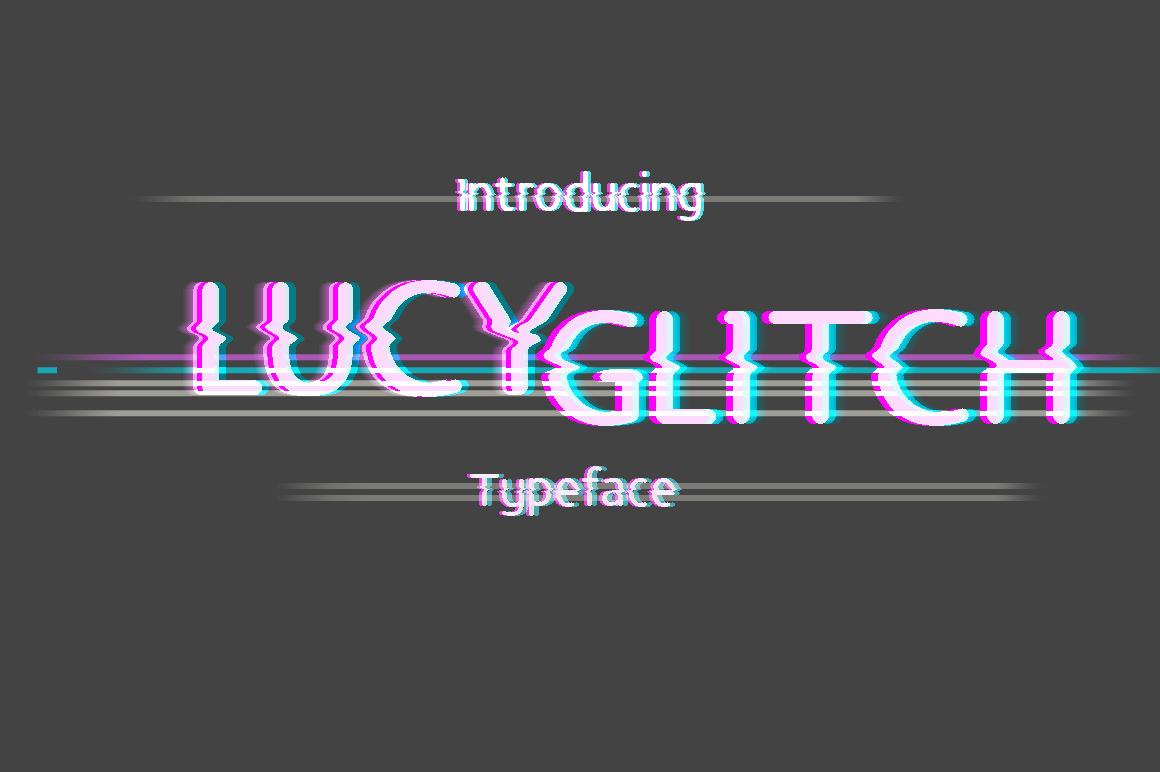
Lucy Glitch Typeface
Introducing Lucy Glitch Typeface
This typeface inspired by a digital failure. A failure can be also a nice one to see. Including simple ligatures, number & punctuation, this typeface can be use for quotes and title.
A very nice quotes to represent this typeface:
"A failure is not always a mistake, it may simply be the best one can do under the circumstances. The real mistake is to stop trying." - B. F. Skinner